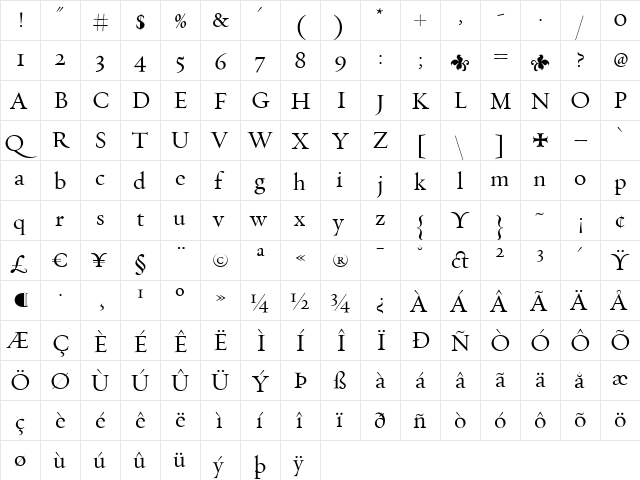
Requiem Medium
Design Context for Requiem Typeface
Requiem is a composed and adaptable typeface that performs quietly and consistently across a wide range of design contexts.